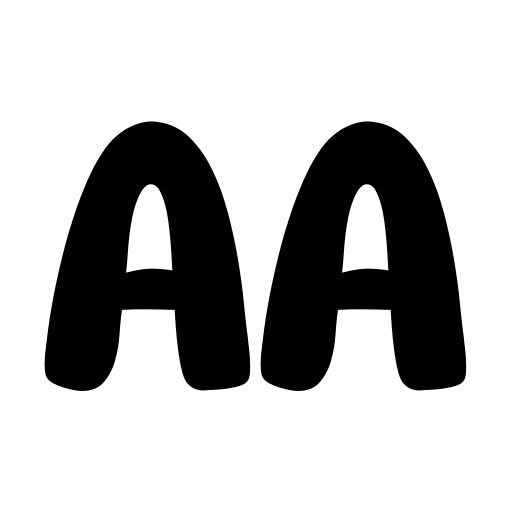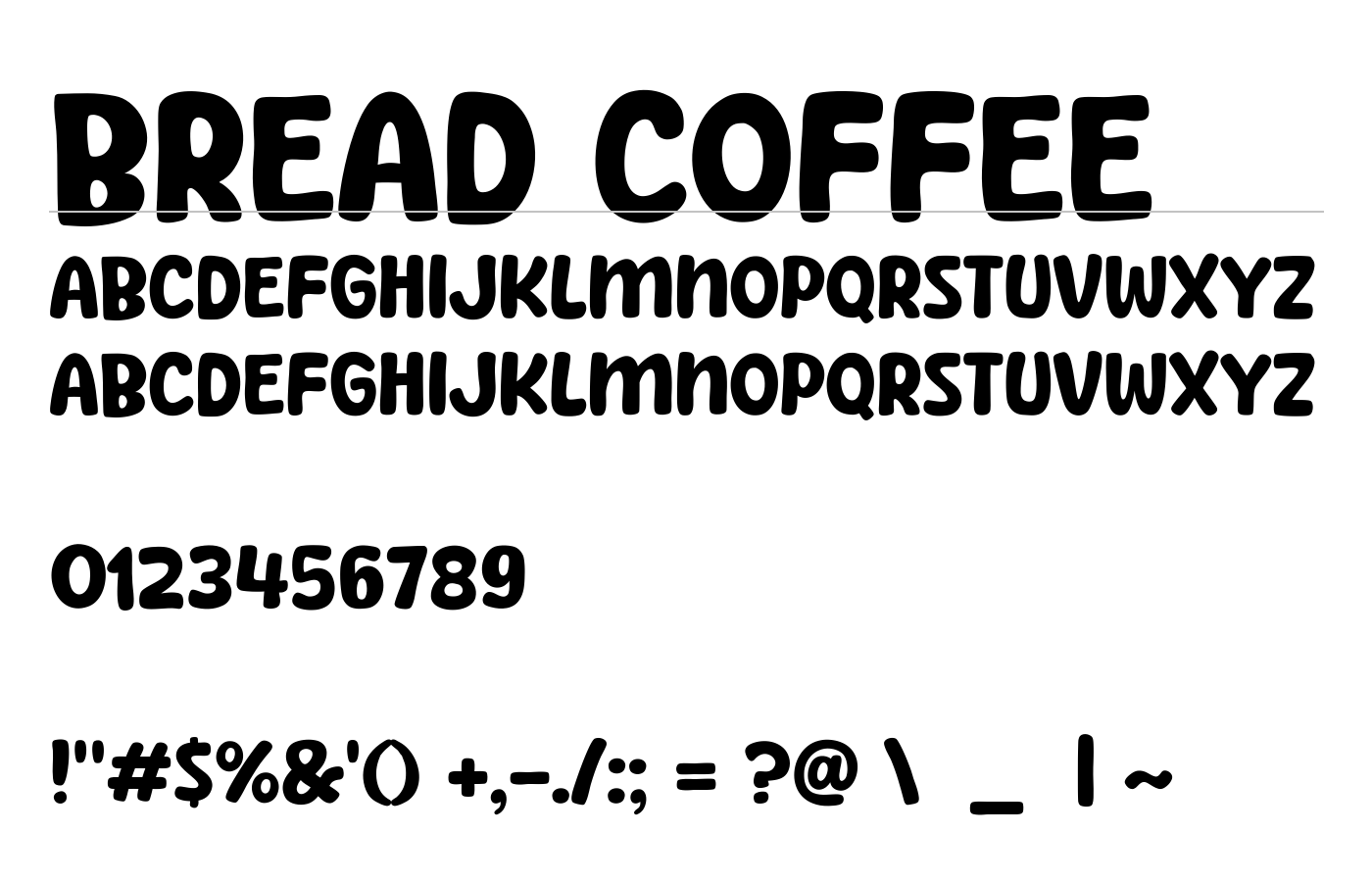
Bread Coffee Font is a bold, rounded sans serif with a playful and friendly character, featuring a chunky weight and well-balanced, consistent stroke widths that give it a casual, approachable feel. Its slightly condensed letterforms and large x-height make it easily readable, while quirky details like the curved terminals add a charming, hand-crafted vibe perfect for informal branding, children’s products, or fun editorial uses. This font works best in headlines, logos, and packaging where a warm, inviting personality is needed to catch attention and convey creativity.
Bread Coffee Font
About Bread Coffee Font